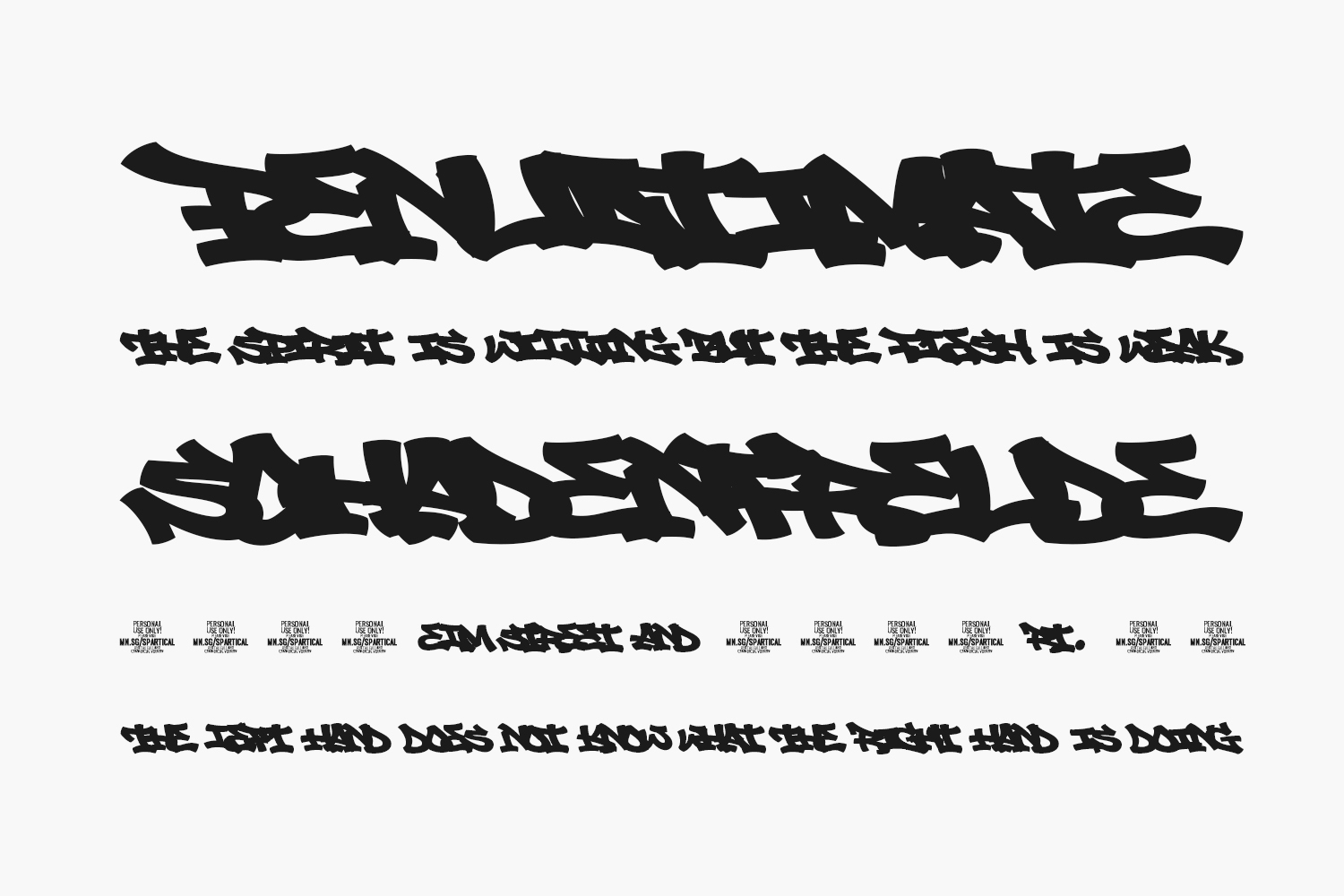
Spartical Graffiti is a bold and expressive brush script font designed by Måns Grebäck to bring the raw energy of street art into your creative projects. With its high-contrast strokes, graffiti-inspired detailing, and dynamic appearance, this free decorative typeface works perfectly for crafting powerful logos, posters, music branding, and more. Available in OTF format — ideal for designers seeking a modern graffiti-style font that commands attention while maintaining readability.
- Bold Graffiti Style: Combines thick ink splatters with strong letterforms for an authentic urban look.
- Ideal for Streetwear Branding: Perfect for clothing labels, sneaker tags, or skate culture visuals needing attitude.
Spartical Graffiti shines across a variety of creative applications:
- Logos & Badges: Adds intensity to brand identities for underground studios, hip-hop labels, or action brands with a rebellious tone.
- Poster & Billboard Design: Designed for high visibility — makes headlines pop in concert flyers or outdoor visuals.
- Music & Album Covers: Brings dramatic energy to LP sleeves, band names, or merchandise designs with a street appeal.
- Packaging Design: Enhances product tags on novelty items, stickers, or lifestyle goods needing an edgy touch.
- Social Media Graphics: Creates bold text overlays for Instagram Stories, TikTok videos, or YouTube thumbnails with a gritty vibe.
To get the most from Spartical Graffiti, pair it with minimalist sans-serif fonts like Nofex or Varelmo for contrast and readability. Use this bold font at large sizes to highlight its expressive strokes and fluidity. For digital use, apply vibrant backgrounds or neon effects to enhance its graffiti appeal. Try our interactive font preview tool below to test Spartical Graffiti with your own text before downloading!
- Glyphs: Uppercase (A-Z), lowercase (a-z), numerals, punctuation, basic special characters.